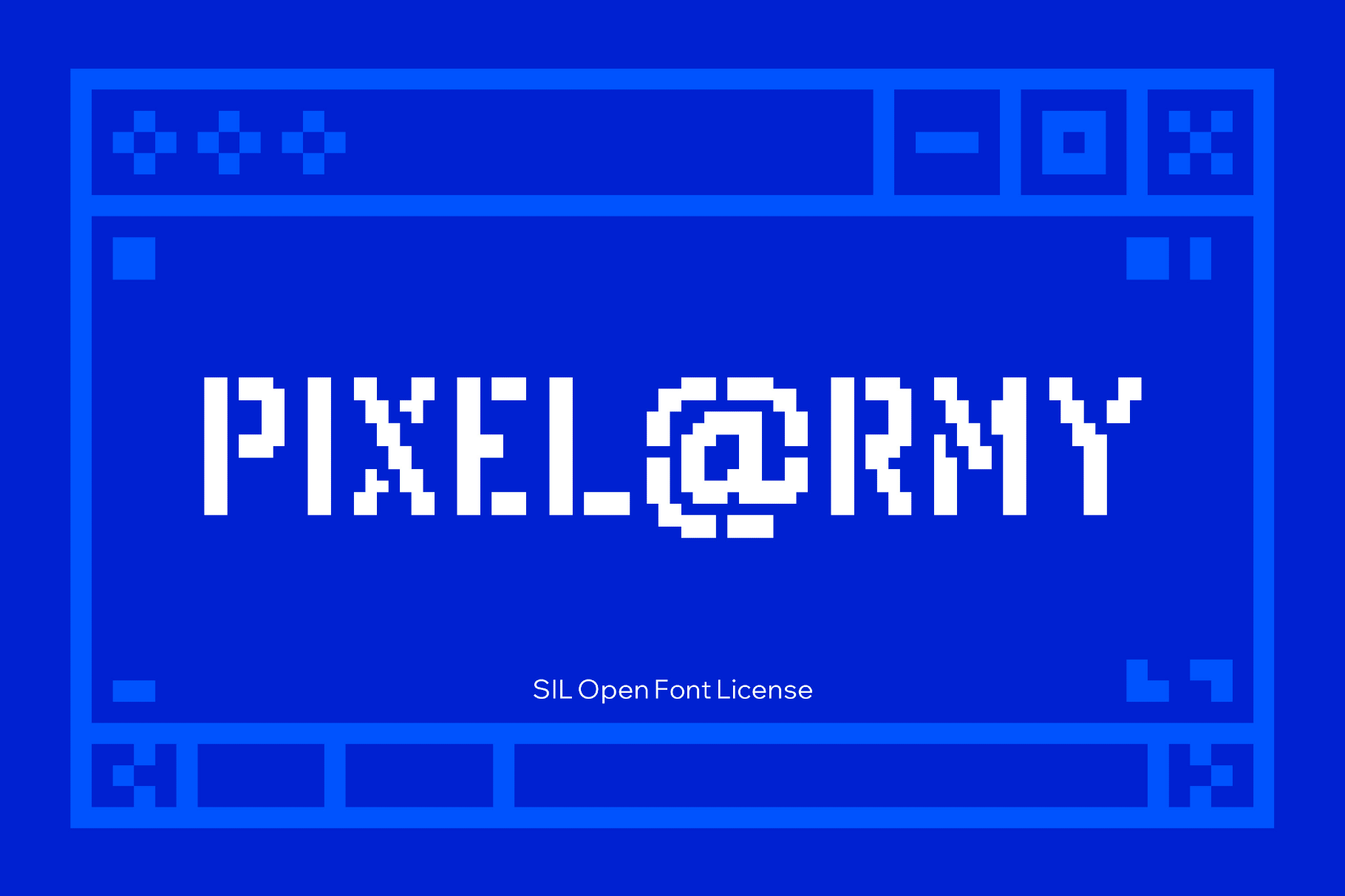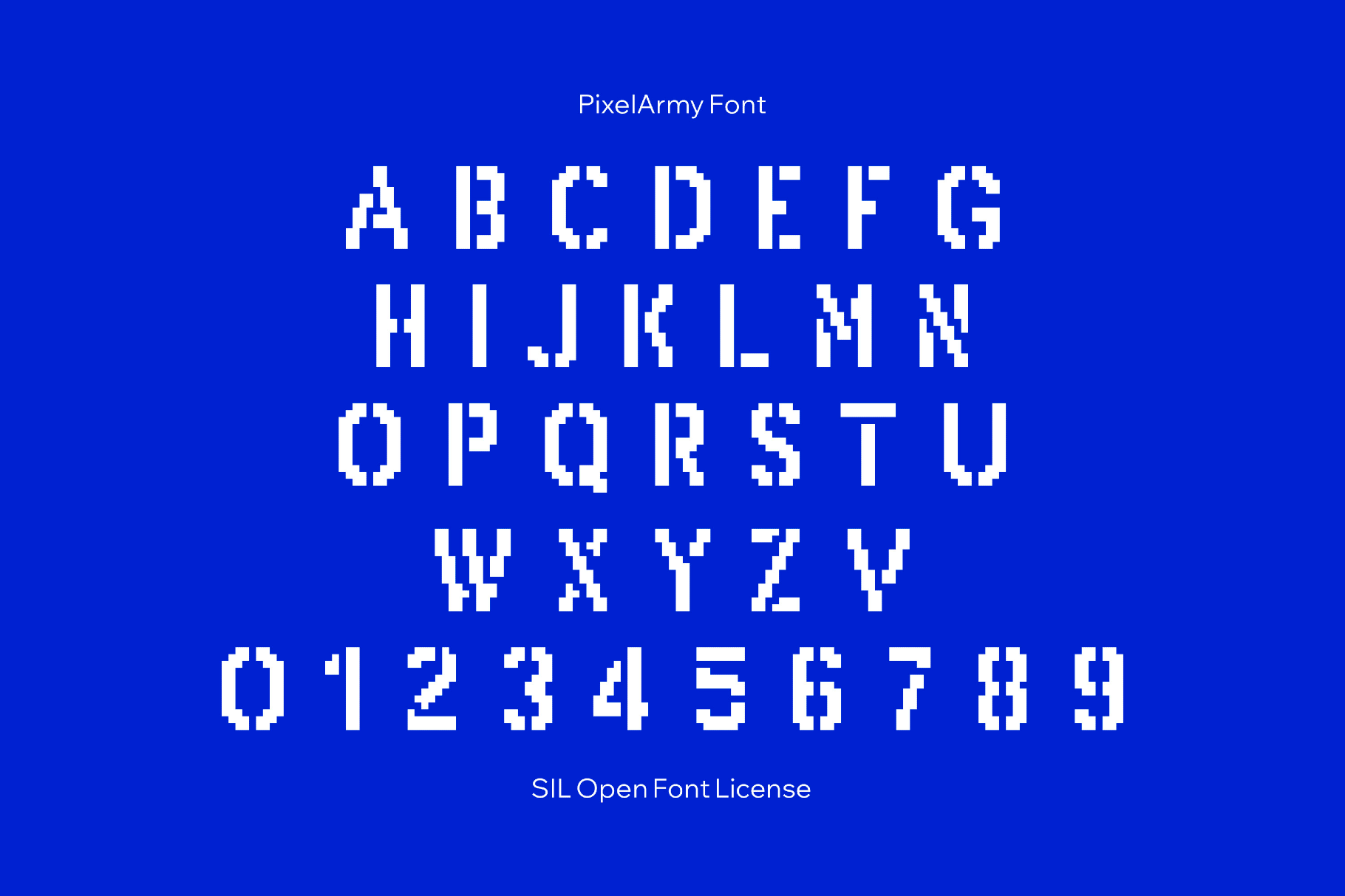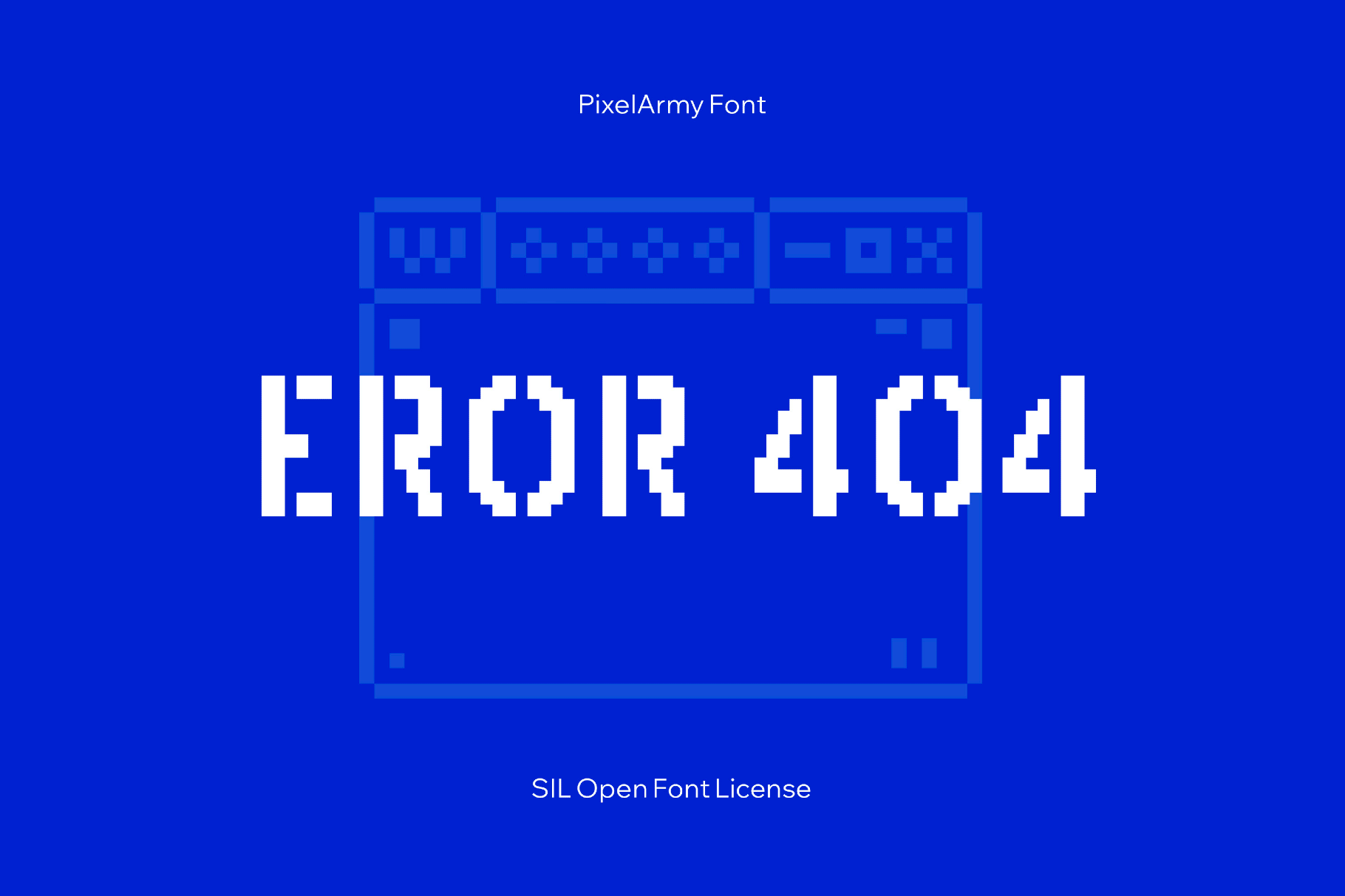
Pixel Army Font
PixelArmy
PixelArmy lines up bold blocks into a compact, all-caps alphabet with a clear military accent. The forms are heavy and mechanical, like a unit badge stamped into an 8-bit display. The texture recalls a half-game, half-army stencil, which works exceptionally well for arcade shooters, tactics and strategy game titles, HUD elements, Minecraft server branding, etc. It fits esports logos and jerseys, military-themed posters, industrial stickers, sci-fi interfaces, and band or brand merch.
Included: uppercase Latin letters A–Z, numbers, punctuation, and common symbols.